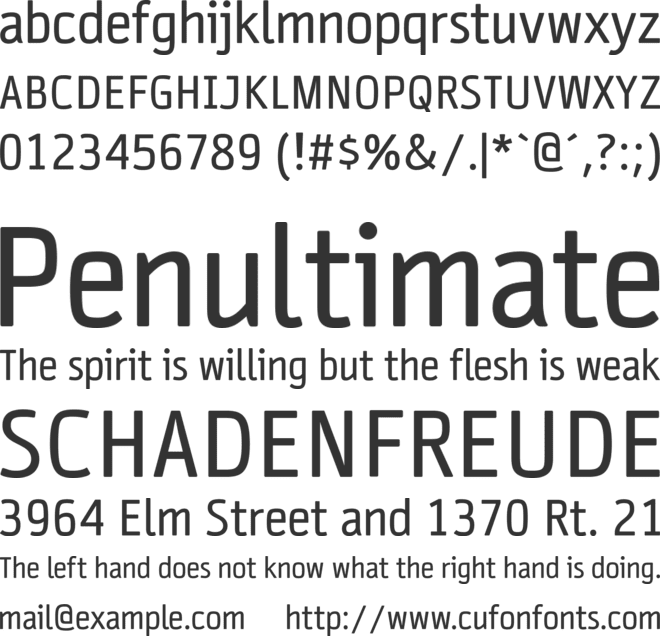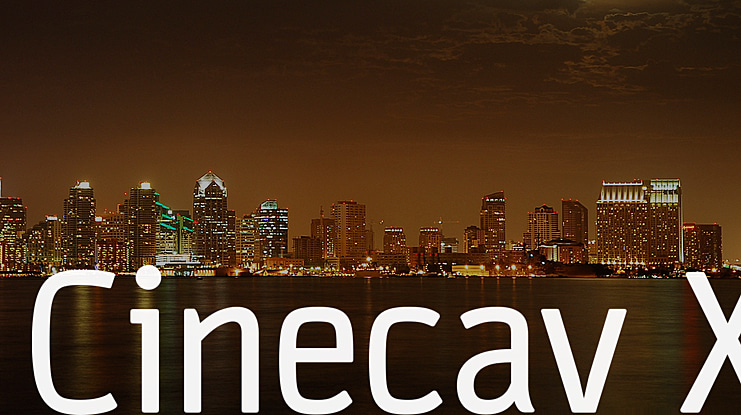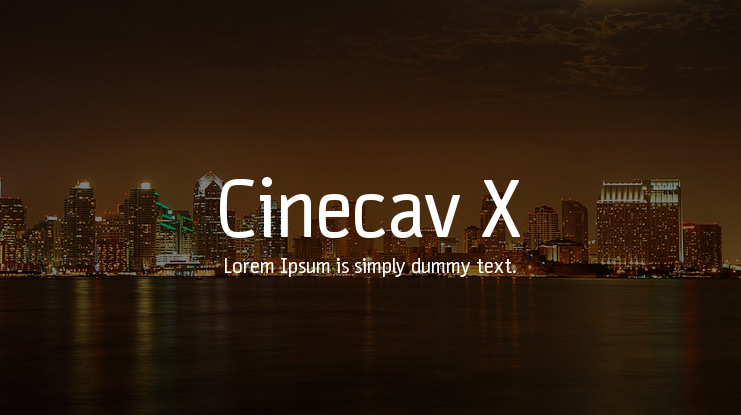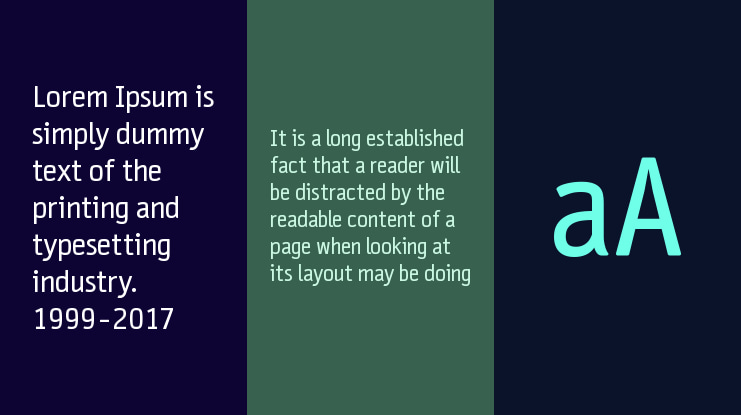
Cinecav X Font Family
Cinecav UI was the first font in the Cinecav family. Subtle, stylish, highly legible and highly efficient, its letter-forms were designed specifically for new televisions with LCD, plasma or good quality CRT’s. Cinecav UI isn’t part of the required FCC closed-caption set, but we included it for use in UI menus and program guides when space is tight. Read the designer’s notes below to learn more.